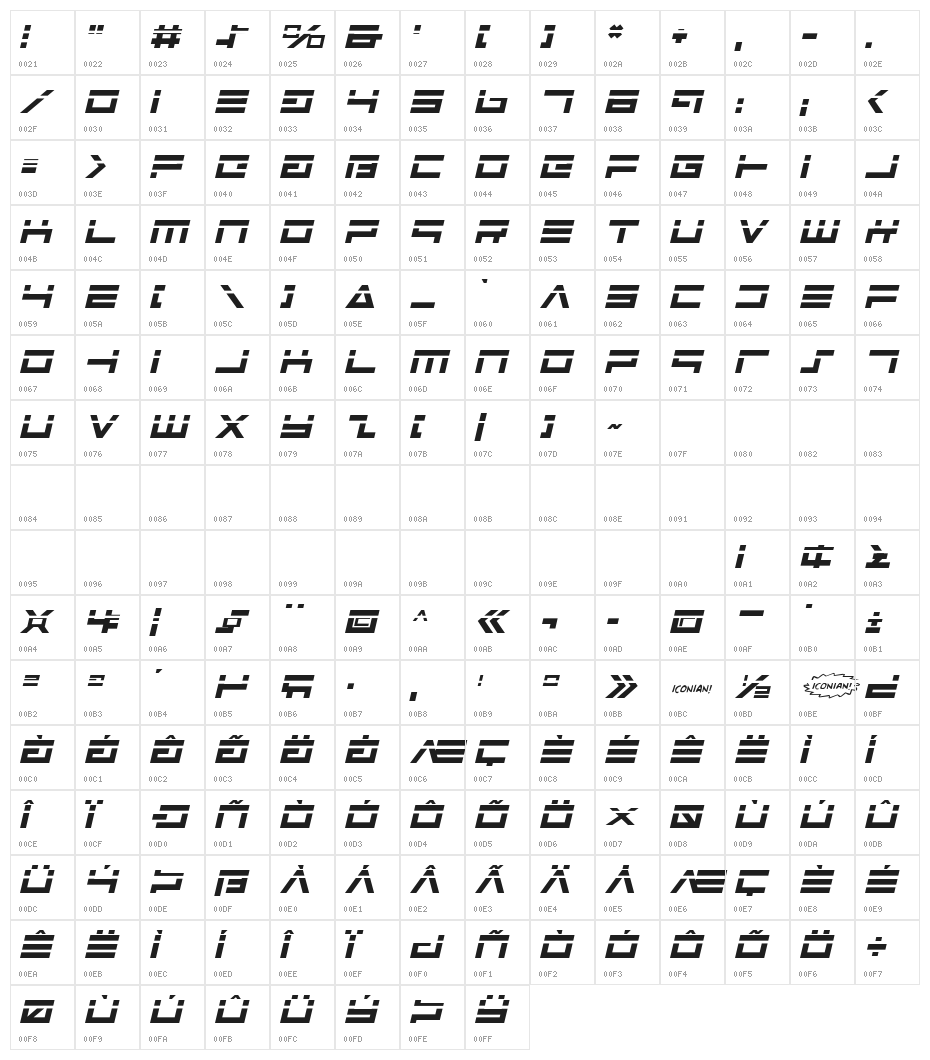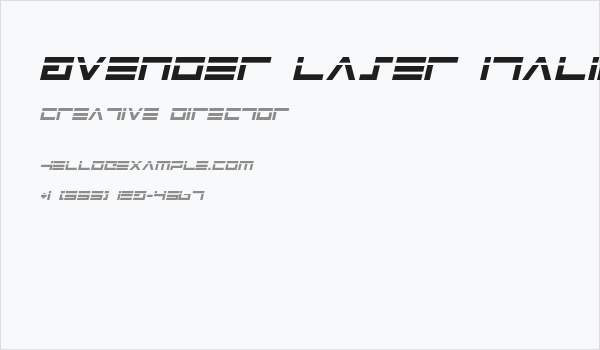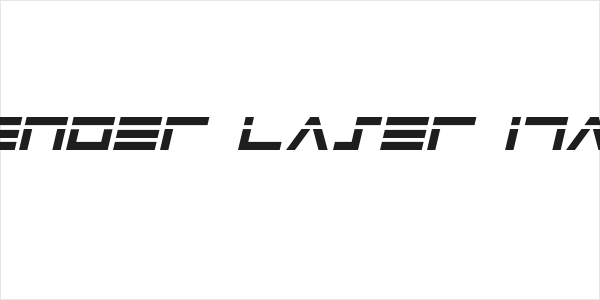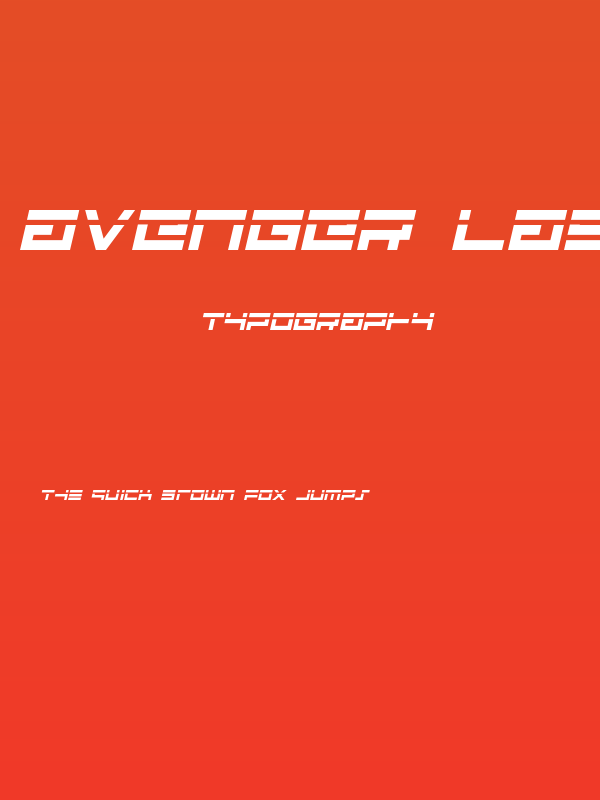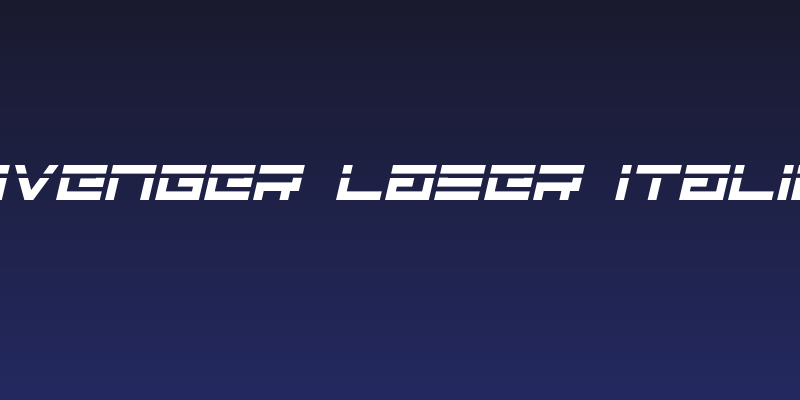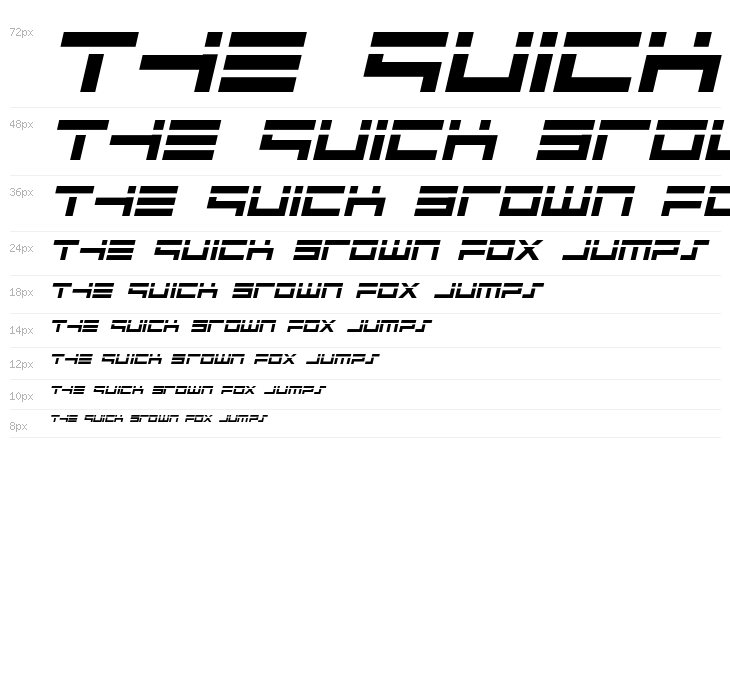
Avenger Laser Italic Font
Avenger Laser Italic Description
This font features a futuristic and angular design, characterized by sharp edges and geometric shapes. The letters are slanted, giving an italicized appearance that enhances its dynamic and modern feel. The uppercase and lowercase letters maintain a consistent style, with a bold presence that makes each character stand out. The numbers and special characters follow the same design principles, ensuring uniformity across all glyphs. The font's unique style is reminiscent of sci-fi themes, making it suitable for projects that require a bold and innovative look.
| Proposed Projects | Ideal for sci-fi movie posters, video game titles, tech branding, and futuristic-themed designs. |